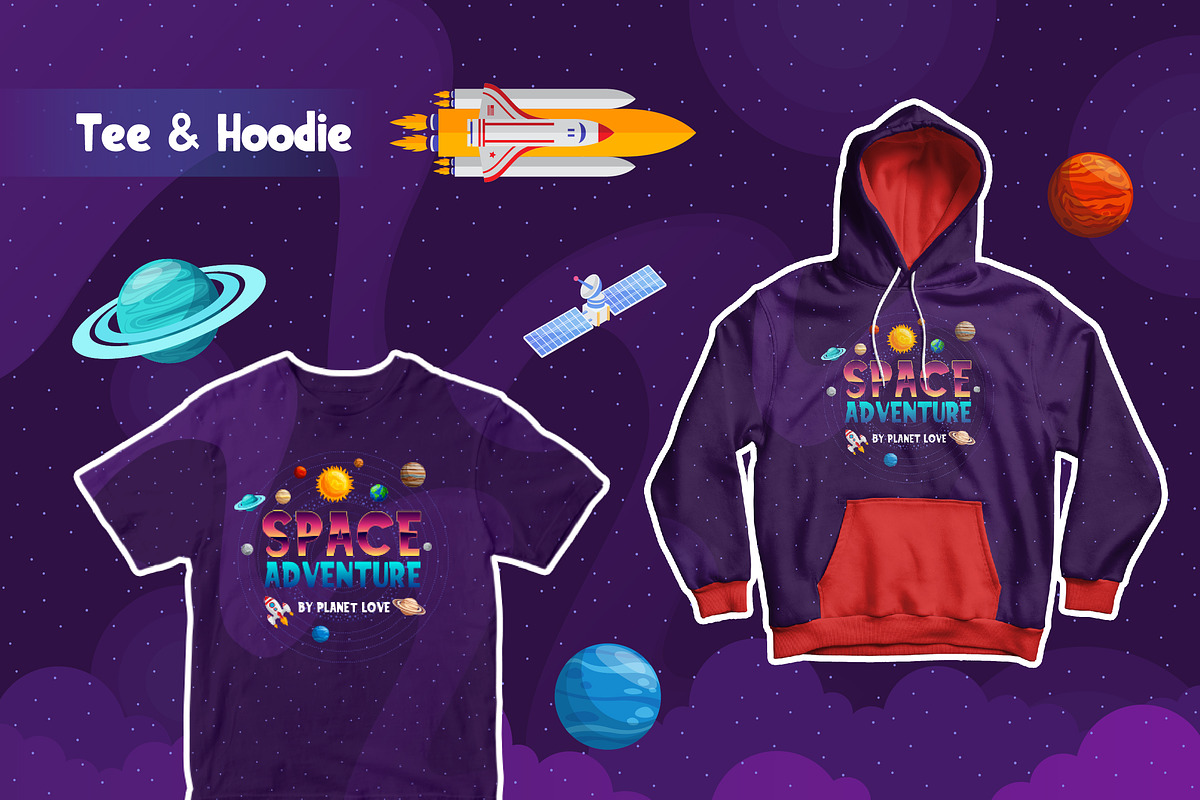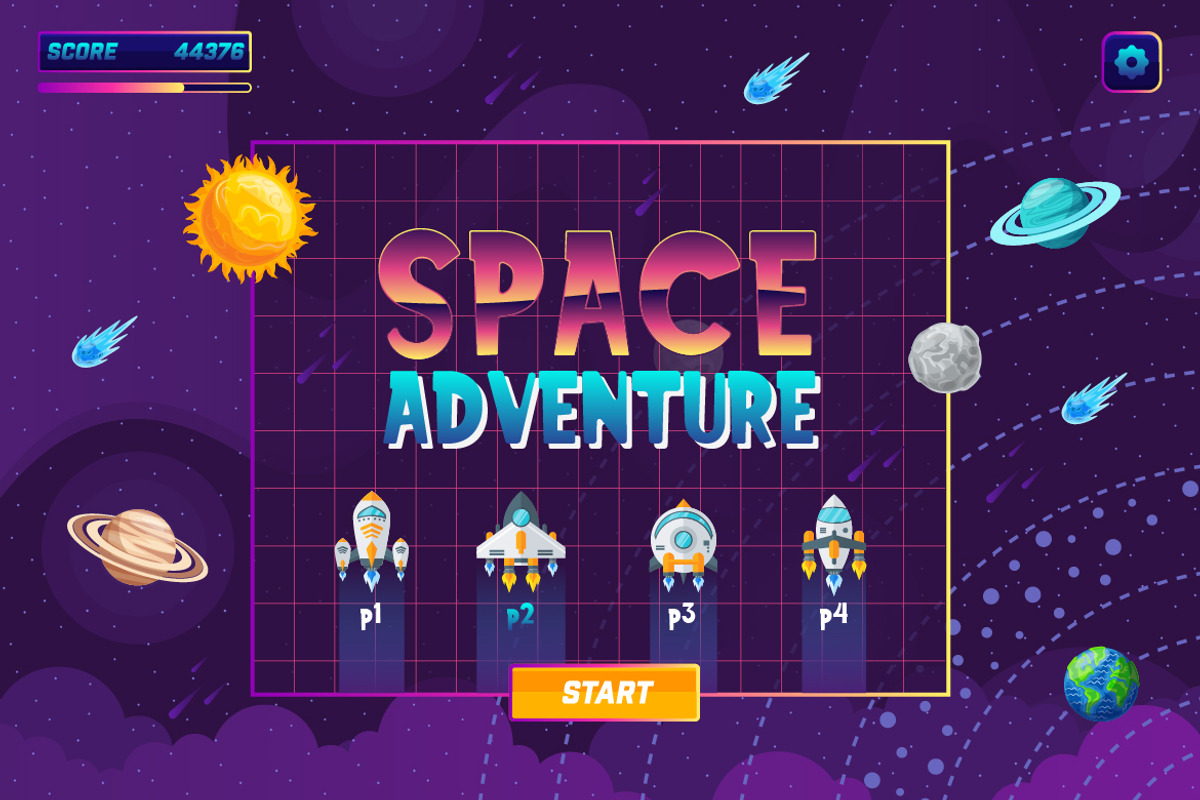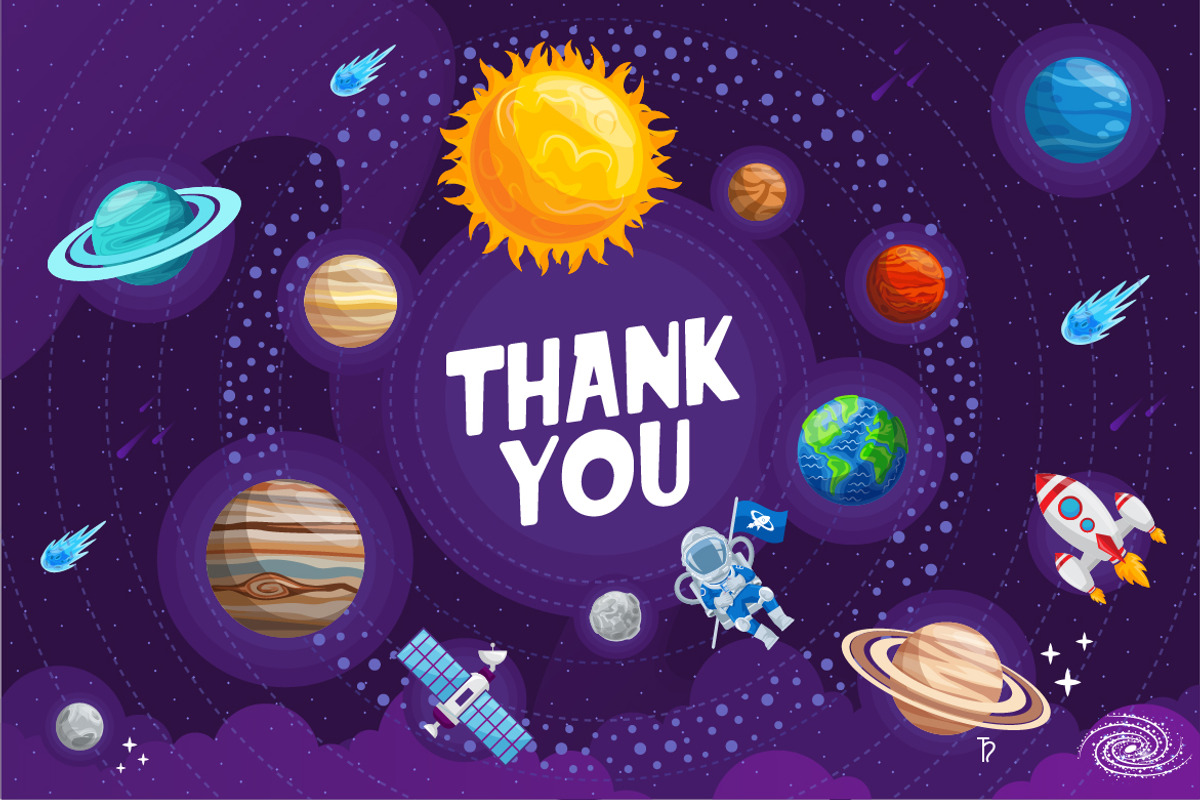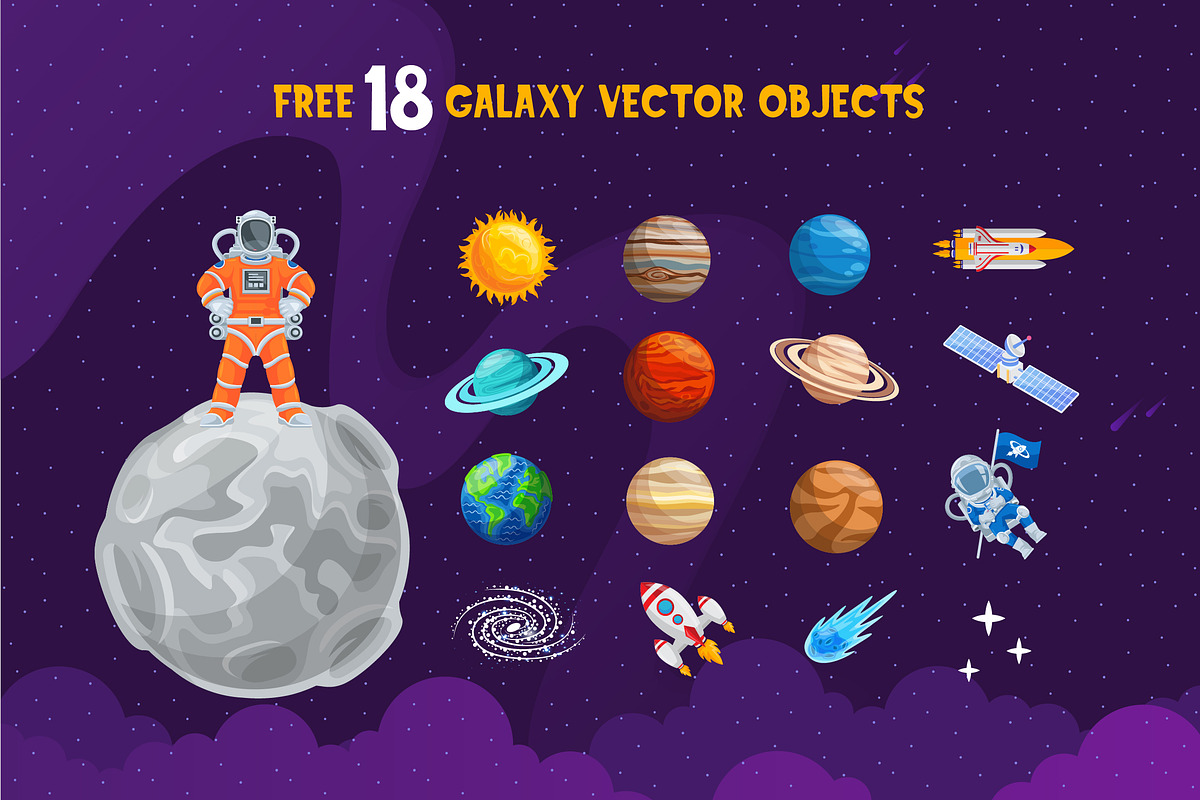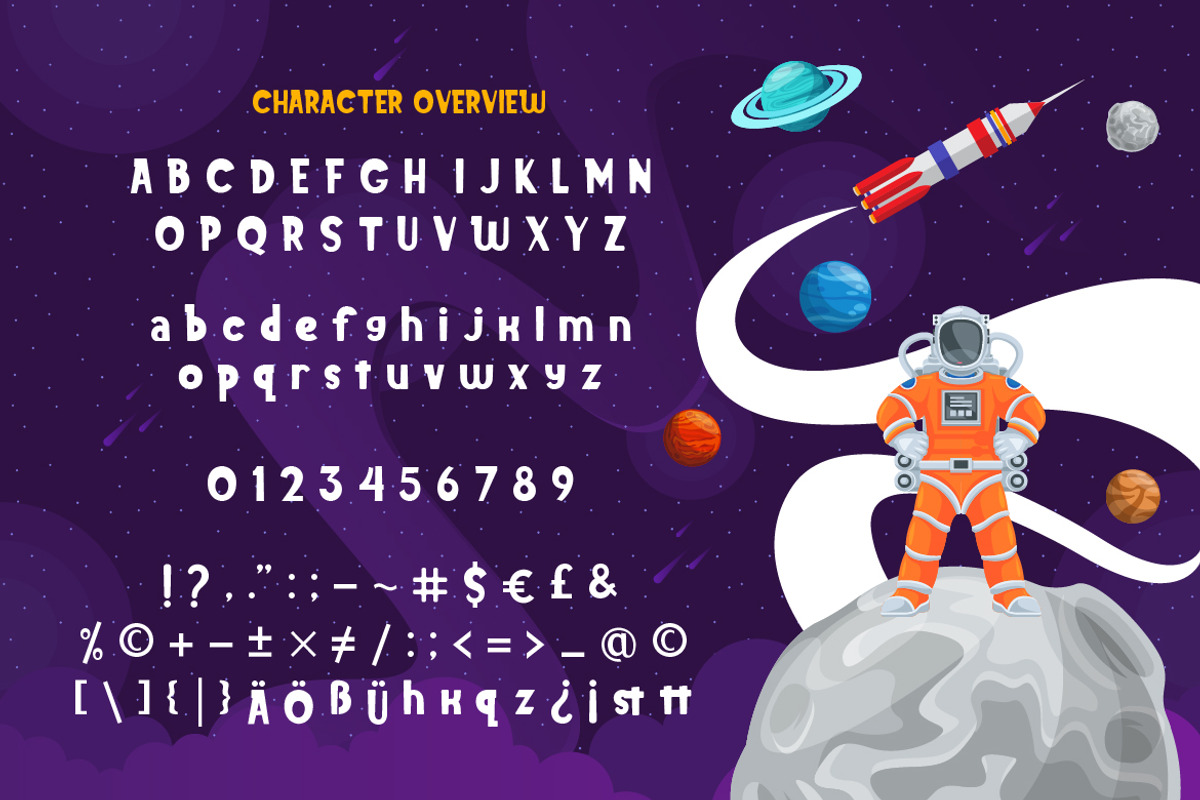
Planet Love - Fun Children Typeface
Are you looking for a bold and fun font for children? We can help! Try to download our Planet love font. The font is suitable to use for casual purpose especially children related occasion :) Oh yeah we forgot to mention that we give you 18 cute galaxy vector objects for free too in Adobe Illustrator format!